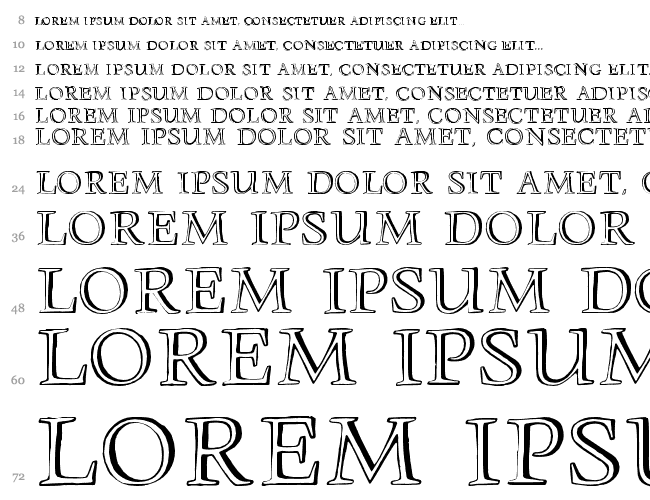
Monument Regular Font Download - Web free monument regular font download. The font family is monument. The font subfamily is regular. Web this extended font can be used for bold editorial statements, graphic heavy prints or just as a simple logo. Monumenr.ttf windows and mac os x compatible. Web monument regular is the perfect font for all your fun designs. Web extend information fonts monument.ttf.
Web free monument regular font download. The font subfamily is regular. Monumenr.ttf windows and mac os x compatible. Web monument regular is the perfect font for all your fun designs. The font family is monument. Web extend information fonts monument.ttf. Web this extended font can be used for bold editorial statements, graphic heavy prints or just as a simple logo.
The font subfamily is regular. Web free monument regular font download. Web this extended font can be used for bold editorial statements, graphic heavy prints or just as a simple logo. Monumenr.ttf windows and mac os x compatible. The font family is monument. Web monument regular is the perfect font for all your fun designs. Web extend information fonts monument.ttf.
Web monument regular is the perfect font for all your fun designs. The font family is monument. Web free monument regular font download. Web extend information fonts monument.ttf. Web this extended font can be used for bold editorial statements, graphic heavy prints or just as a simple logo.
The font subfamily is regular. The font family is monument. Web monument regular is the perfect font for all your fun designs. Monumenr.ttf windows and mac os x compatible. Web free monument regular font download.
Web extend information fonts monument.ttf. The font family is monument. Web monument regular is the perfect font for all your fun designs. The font subfamily is regular. Web free monument regular font download.
The font family is monument. Monumenr.ttf windows and mac os x compatible. Web extend information fonts monument.ttf. Web free monument regular font download. Web monument regular is the perfect font for all your fun designs.
Web free monument regular font download. Monumenr.ttf windows and mac os x compatible. The font family is monument. The font subfamily is regular. Web this extended font can be used for bold editorial statements, graphic heavy prints or just as a simple logo.
Monument Regular font
Web extend information fonts monument.ttf. Web free monument regular font download. The font family is monument. Web this extended font can be used for bold editorial statements, graphic heavy prints or just as a simple logo. Monumenr.ttf windows and mac os x compatible.
Web this extended font can be used for bold editorial statements, graphic heavy prints or just as a simple logo. Web monument regular is the perfect font for all your fun designs. The font subfamily is regular. The font family is monument. Web extend information fonts monument.ttf.
Web this extended font can be used for bold editorial statements, graphic heavy prints or just as a simple logo. The font subfamily is regular. Web extend information fonts monument.ttf. The font family is monument. Web free monument regular font download.
Download free monumentextended Regular font
Monumenr.ttf windows and mac os x compatible. Web free monument regular font download. Web monument regular is the perfect font for all your fun designs. Web this extended font can be used for bold editorial statements, graphic heavy prints or just as a simple logo. The font family is monument.
Monument Extended Font Family Free Fonts
Web free monument regular font download. Web this extended font can be used for bold editorial statements, graphic heavy prints or just as a simple logo. The font subfamily is regular. Monumenr.ttf windows and mac os x compatible. Web extend information fonts monument.ttf.
Web Monument Regular Is The Perfect Font For All Your Fun Designs.
The font subfamily is regular. Web extend information fonts monument.ttf. Monumenr.ttf windows and mac os x compatible. Web free monument regular font download.
The Font Family Is Monument.
Web this extended font can be used for bold editorial statements, graphic heavy prints or just as a simple logo.